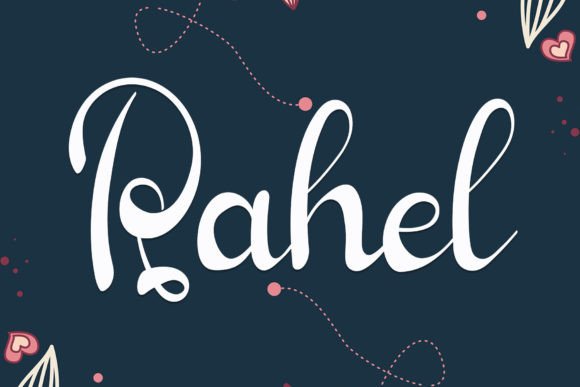
Unveil the Allure of Rahel Font: An Exquisite Symphony of Elegance for Your Creative Endeavors
In the realm of typography, where letters dance and words come alive, there exists a font that captivates the senses and ignites the imagination. Introducing Rahel Font, a breathtaking script font that will transform your creative projects into masterpieces of art.
Rahel Font is a carefully crafted symphony of grace and elegance, meticulously designed to evoke a sense of timeless beauty. Its flowing curves and delicate swashes mimic the graceful strokes of a calligrapher's pen, capturing the essence of handwritten charm. Whether you're crafting wedding invitations, greeting cards, or creating eye-catching logos, Rahel Font will elevate your designs to new heights of sophistication.
Immerse yourself in the versatility of Rahel Font, a font that seamlessly adapts to a wide array of creative endeavors. Its inherent elegance shines through on wedding invitations, adding a touch of romance and charm to your special day. Unleash your creativity on greeting cards, infusing them with warmth and heartfelt sentiments. Make a bold statement with billboards and logos, capturing attention and leaving a lasting impression. Rahel Font is the perfect companion for business cards, lending an air of professionalism and sophistication to your branding.
With Rahel Font, the possibilities are limitless. Its adaptability extends to a myriad of design projects, from posters and flyers to social media graphics and website designs. Experience the joy of creating captivating content that resonates with your audience, leaving them mesmerized by the beauty of your designs.
Rahel Font is more than just a font; it's an expression of your unique style and creativity. Allow your imagination to soar as you explore the endless possibilities that await you with this remarkable font. Let the words flow effortlessly from your fingertips, guided by the exquisite curves and flourishes of Rahel Font.
Embrace the beauty of Rahel Font and embark on a creative journey like never before. Experience the magic of transforming ordinary words into works of art, captivating your audience with every stroke. Let Rahel Font be your muse, inspiring you to create designs that leave an unforgettable impression.